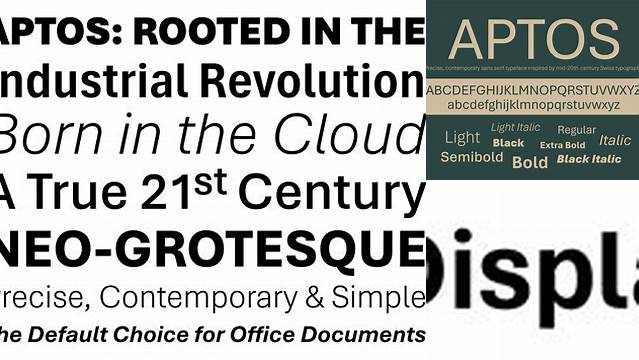
Aptos Display Italic Font: Free Download & Usage Guide
Hey guys, let's dive into the world of typography and talk about the Aptos Display Italic font. You've probably seen it around, maybe even used it without realizing it. It's a modern, clean typeface that's gaining popularity, and many of you are looking for where to snag a free download and how to best utilize its italic version. Well, you've come to the right place! This article is your ultimate guide to the Aptos Display Italic font, covering everything from its design philosophy to practical usage tips. We'll break down why this font is a great choice for various projects and how to get your hands on it without spending a dime. So, buckle up, and let's explore the elegance and versatility of Aptos Display Italic!
Understanding the Aptos Display Italic Font Family
The Aptos Display Italic font isn't just a standalone piece; it's part of a larger, meticulously crafted font family. Understanding its context within the broader Aptos family is key to appreciating its design and intended use. Initially, Aptos was developed as a successor to Calibri, aiming for a more contemporary feel while retaining legibility and approachability. The 'Display' variant, as the name suggests, is specifically engineered for larger sizes, headlines, and prominent text elements where clarity and impact are paramount. When you introduce the italic style into the mix, you're adding a layer of sophistication and dynamism. The italic version is not merely a slanted rendition; it's often subtly redrawn to enhance flow and readability at display sizes. Think of it as the elegant cursive cousin to the upright regular, offering a distinct personality that can differentiate between a standard statement and a more emphatic or stylish one. The designers likely spent considerable time refining the curves, ascenders, and descenders to ensure that even at large point sizes, the italic form maintains its integrity and aesthetic appeal. This attention to detail is what sets professional typefaces apart and why fonts like Aptos Display Italic become so sought after. It’s about more than just aesthetics; it’s about the nuanced communication that typography enables. The designers have likely ensured that the italic variants have a distinct character, perhaps with more pronounced calligraphic influences or a smoother, more flowing baseline, making them ideal for everything from book titles to website hero banners. The interplay between the regular and italic styles within the display family allows for sophisticated typographic hierarchies, enabling designers to create visual interest and guide the reader's eye effectively through different levels of information. This intentional design ensures that the italic is not just an afterthought but a fully realized partner to its upright counterpart, offering a rich palette of expression for any design project.
Exploring the Design Principles of Aptos Display Italic
Let's get into the nitty-gritty of what makes the Aptos Display Italic font tick, especially its italic variant. The design principles behind Aptos, and by extension its italic display version, focus on clarity, modernity, and a friendly, approachable vibe. When designers create an italic, they're not just slanting the existing characters; they're often re-drawing them with a different stress and stroke modulation, aiming for a more fluid and sometimes more expressive feel. For Aptos Display Italic, this means you're likely to see subtle calligraphic influences. Imagine the graceful sweep of a pen – that's the kind of energy they're trying to capture. This italic version is optimized for larger applications, so the details that might get lost at small sizes are beautifully rendered. Think about the terminals of letters, the curves, and the overall rhythm. In the italic, these elements are often enhanced to give a sense of movement and emphasis. It’s about creating a visual contrast with the upright styles, allowing designers to create a clear hierarchy and add a touch of personality. The goal is to make text that is both impactful and easy to read, even when it’s drawing a lot of attention. The italic’s distinct character is crucial here; it needs to stand out enough to convey emphasis but remain harmonious with the rest of the typeface family. This careful balance ensures that the Aptos Display Italic font can be used confidently in a variety of contexts, from elegant invitations to bold advertising copy, without feeling out of place or losing its intended legibility. The designers likely focused on ensuring that the italic forms possess a unique charm, possibly leaning into a more humanist feel with subtle variations in stroke width that mimic handwriting, thus adding a layer of warmth and personal touch. This deliberate design approach ensures that the Aptos Display Italic isn't just a sloped version but a fully realized typographic tool capable of conveying a range of emotions and intentions, making it a versatile asset for any designer’s toolkit. The intentionality behind each curve and line in the italic variant speaks volumes about its sophisticated design, aiming to provide both aesthetic pleasure and functional superiority in demanding visual scenarios.
Why Aptos Display Italic is a Great Choice for Headlines
Alright guys, let's talk about why the Aptos Display Italic font absolutely shines when it comes to headlines and titles. You know, those big, bold words that grab your attention right off the bat? That's exactly where this font excels. The 'Display' part of its name isn't just for show; it means this font is specifically designed to be impactful at larger sizes. When you use Aptos Display Italic for your headlines, you're instantly adding a level of sophistication and dynamism that you just don't get with standard fonts. The italic form naturally draws the eye, creating a sense of movement and urgency that's perfect for grabbing attention. It’s like the difference between someone calmly stating a fact and someone enthusiastically sharing exciting news – the italic version injects that extra energy. Plus, the clean lines and modern aesthetic of Aptos ensure that even with the added flair of italics, the text remains highly legible. You don't want your headline to look fancy but be impossible to read, right? Aptos Display Italic strikes that perfect balance. It’s robust enough for strong statements but refined enough for elegant branding. Think about using it for a sale announcement, a special offer, or the title of a compelling article – the italic twist adds that extra 'oomph' that makes people stop and read. The designers have likely ensured that the letterforms in the italic variant possess a distinct character, perhaps with a slightly more pronounced slant or subtle variations in stroke weight that enhance its visual appeal without sacrificing readability. This makes it an incredibly versatile tool for designers who want to create striking visual hierarchies and make their key messages pop. The italic version can also serve to differentiate between different types of information within a heading, adding a subtle layer of meaning or emphasis. Ultimately, the Aptos Display Italic font provides a powerful yet elegant solution for any headline that needs to make a statement, offering a blend of modern design, clear communication, and a touch of visual excitement that is hard to beat. Its adaptability across various design contexts, from print to digital, further cements its status as a go-to choice for impactful headings. This font truly understands how to command attention while maintaining an air of professional polish, making it a designer's best friend for creating memorable first impressions.
The Nuances of Aptos Display Italic for Subheadings
Moving beyond headlines, let's consider how the Aptos Display Italic font can elevate your subheadings. While headlines grab attention, subheadings are crucial for organizing content and guiding the reader through the text. Aptos Display Italic offers a subtle yet effective way to distinguish these sections. When used for subheadings, the italic form provides a gentle visual break from the main body text, signaling a shift in topic or a new point of discussion. It’s less aggressive than a bold heading but more distinctive than just a slightly larger font size. This creates a smooth reading flow, helping your audience digest information more easily. The elegance of the italic script can add a touch of sophistication to your layout, making the content feel more curated and professional. For blog posts, articles, or even presentations, using Aptos Display Italic for subheadings can create a clear typographic hierarchy without being jarring. It’s about creating subtle visual cues that enhance readability and engagement. The legibility of Aptos ensures that these subheadings remain clear and accessible, even on smaller screens or at moderate sizes. The contrast between the upright body text and the italic subheadings provides a pleasing visual rhythm that keeps the reader interested. Think of it as a quiet conversation starter within your text, inviting the reader to delve deeper into the next section. The designers likely ensured that the italic’s slant and proportions are carefully considered, so it complements rather than competes with the regular weights. This thoughtful design ensures that the Aptos Display Italic font is not just a stylistic choice but a functional tool for improving information architecture. Its ability to add a layer of refinement without overwhelming the reader makes it perfect for those moments when you want to signal a transition or highlight a key concept in a more understated manner. The clean, modern aesthetic ensures that the overall design feels cohesive and contemporary, reinforcing the brand's message or the author's intent. It’s this blend of subtle emphasis and inherent legibility that makes Aptos Display Italic a standout option for structuring longer pieces of content, providing a polished and professional feel that guides the reader seamlessly through the material. The careful calibration of its italic form ensures it provides just the right amount of differentiation to structure content effectively while maintaining an accessible and inviting tone, making complex information feel more approachable and engaging for a wider audience. The font's inherent qualities lend themselves beautifully to creating a clear, logical flow, enhancing the overall user experience by making navigation through textual content intuitive and aesthetically pleasing.
######## Practical Applications of Aptos Display Italic in Design
Now that we know where to get it and the licensing basics, let's talk about how you can actually use the Aptos Display Italic font in your design projects, guys! Its versatility is pretty impressive. For web design, Aptos Display Italic is fantastic for hero sections, call-to-action buttons, and prominent page titles. The clean, modern look ensures readability on screens, while the italic adds that necessary visual pop to draw users in. Imagine a sleek e-commerce site where product names or special offers are highlighted in Aptos Display Italic – it’s elegant and effective. In graphic design, think brochures, posters, and social media graphics. Use it for event titles, key statistics, or quotes that you want to stand out. The italic adds a touch of dynamism that can make a static design feel more alive. For branding, Aptos Display Italic can be used sparingly for taglines or specific campaign elements to add personality and memorability. It offers a contemporary feel that works well for modern businesses. In document design, like reports or proposals, using it for section breaks or important highlighted points can improve the flow and visual appeal without being overly distracting. The key is to use it intentionally. As a display font, it's best reserved for larger text elements where its design features can be fully appreciated. Overusing it in body text, especially in its italic form, can hinder readability. So, reserve that beautiful italic flourish for where it truly counts – the elements that need to command attention and convey a sense of style and urgency. Its inherent clarity ensures that even when used expressively, the message remains front and center, making it a powerful tool for impactful visual communication across diverse media platforms. The adaptability of Aptos Display Italic means it can seamlessly transition between various design contexts, offering a consistent yet dynamic typographic voice that enhances the overall aesthetic and functional quality of any given project, from digital interfaces to print materials. It’s a font that truly bridges the gap between form and function, providing designers with a reliable and stylish option for making their designs resonate with their intended audience. Its clean geometry and subtle calligraphic leanings in the italic form make it suitable for a wide range of branding and editorial applications, ensuring a sophisticated and modern impression.
######### Using Aptos Display Italic for Emphasis
One of the most common and effective uses for the Aptos Display Italic font is, of course, for emphasis. We all need to stress certain words or phrases in our writing, right? And Aptos Display Italic is a stellar choice for doing just that. In any text, whether it's a blog post, an email, a report, or even a social media update, sometimes you just need a word or a short phrase to stand out. Instead of resorting to ALL CAPS, which can sometimes feel shouty, or underlining, which can look a bit dated, the italic version of Aptos offers a more elegant and visually pleasing way to create emphasis. The subtle shift in angle and the often more fluid stroke of an italic font naturally draw the reader's eye to those specific words. It creates a gentle nudge, saying, "Hey, pay attention to this bit!" The designers of Aptos Display Italic have likely crafted the italic form to have just the right amount of distinctiveness to achieve this without sacrificing readability. This means you can confidently use it to highlight keywords, important statistics, or particularly impactful statements within your content. For example, if you're writing about the benefits of a product, italicizing that word with Aptos Display Italic makes it pop without disrupting the flow of the sentence. It's a subtle art, but incredibly effective. Remember, the goal of emphasis is to guide the reader, not to distract them. Aptos Display Italic achieves this beautifully by providing a clear visual cue that's both sophisticated and easy to understand. It’s a tool that helps convey nuance and intent, allowing your message to be heard loud and clear, but with a touch of style. This makes it particularly useful in persuasive writing or when you need to guide the reader’s attention to crucial details that might otherwise be overlooked in a denser block of text. The font's clean design ensures that the emphasis feels deliberate and professional, rather than accidental or jarring, contributing to a polished and effective communication strategy. It’s about adding clarity and focus where it matters most, ensuring your key points land with the intended impact and making your content more digestible and engaging for the reader.